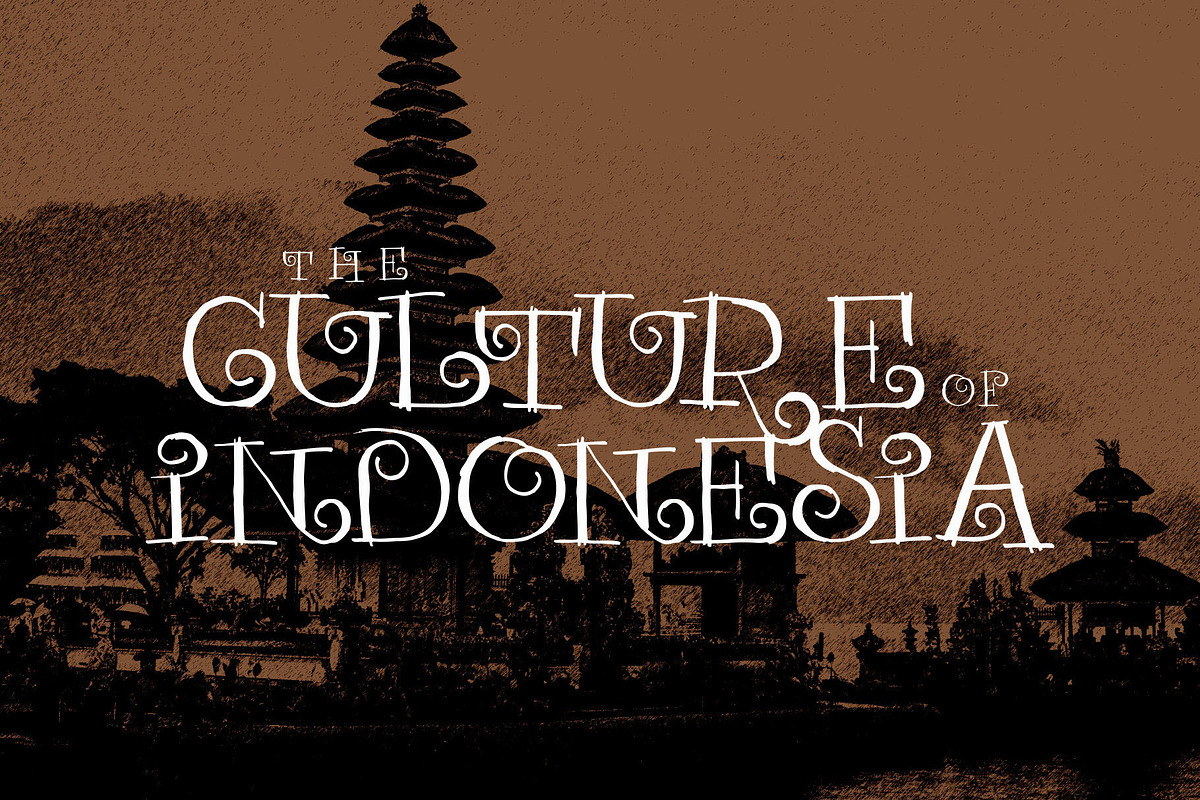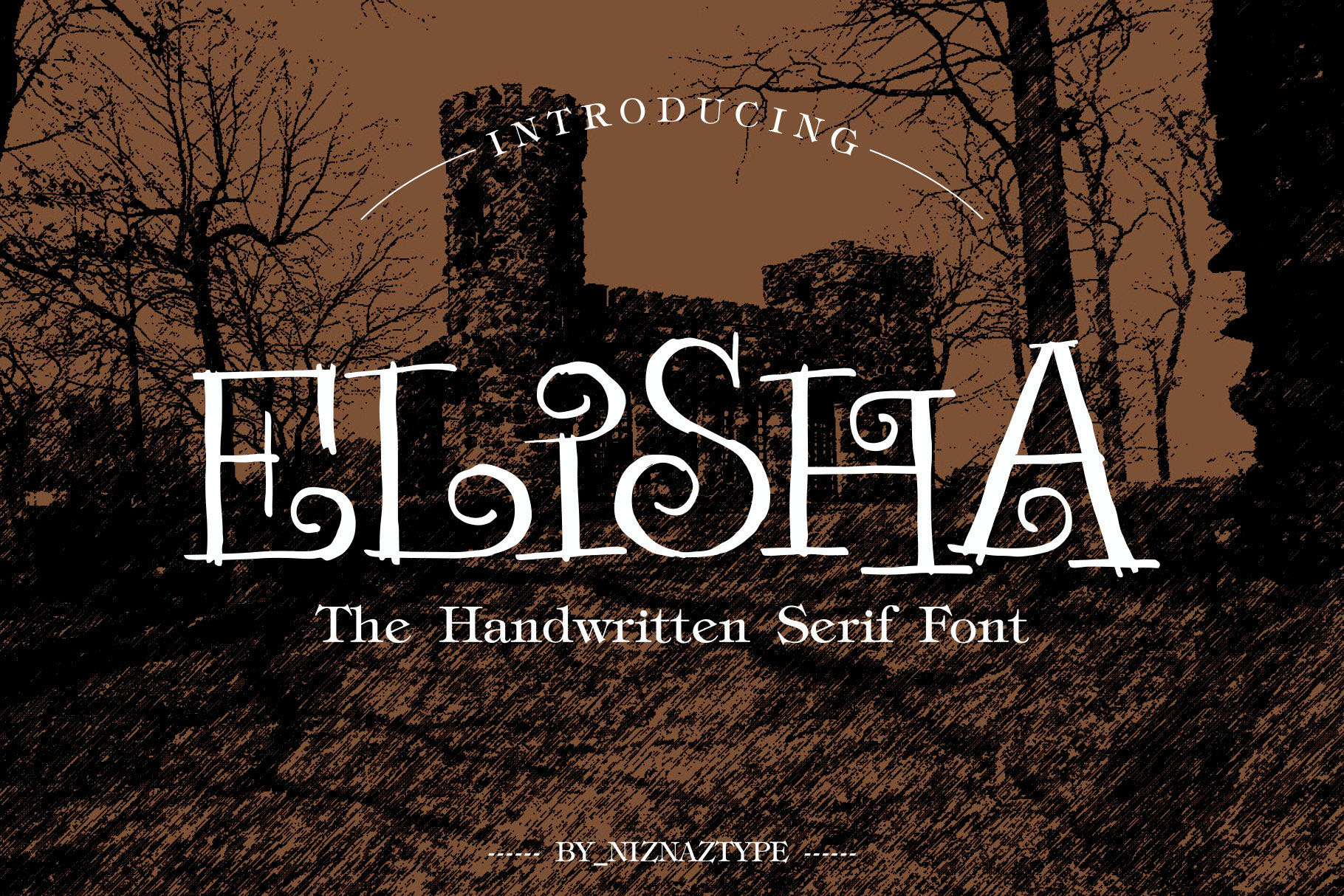
Elisha - A Serif Handwritting Font
Elisha is a new blackletter handwritten font. Made by ethnic characteristics. This font is also a serif font that created with an ornament style in each glyph. Elisha font is comfortable for designs such as culture theme, ethnic theme, classic theme, nature theme or gothic theme. Elisha font saved in three formats, TTF OTF and WOFF. Enjoy it with this font